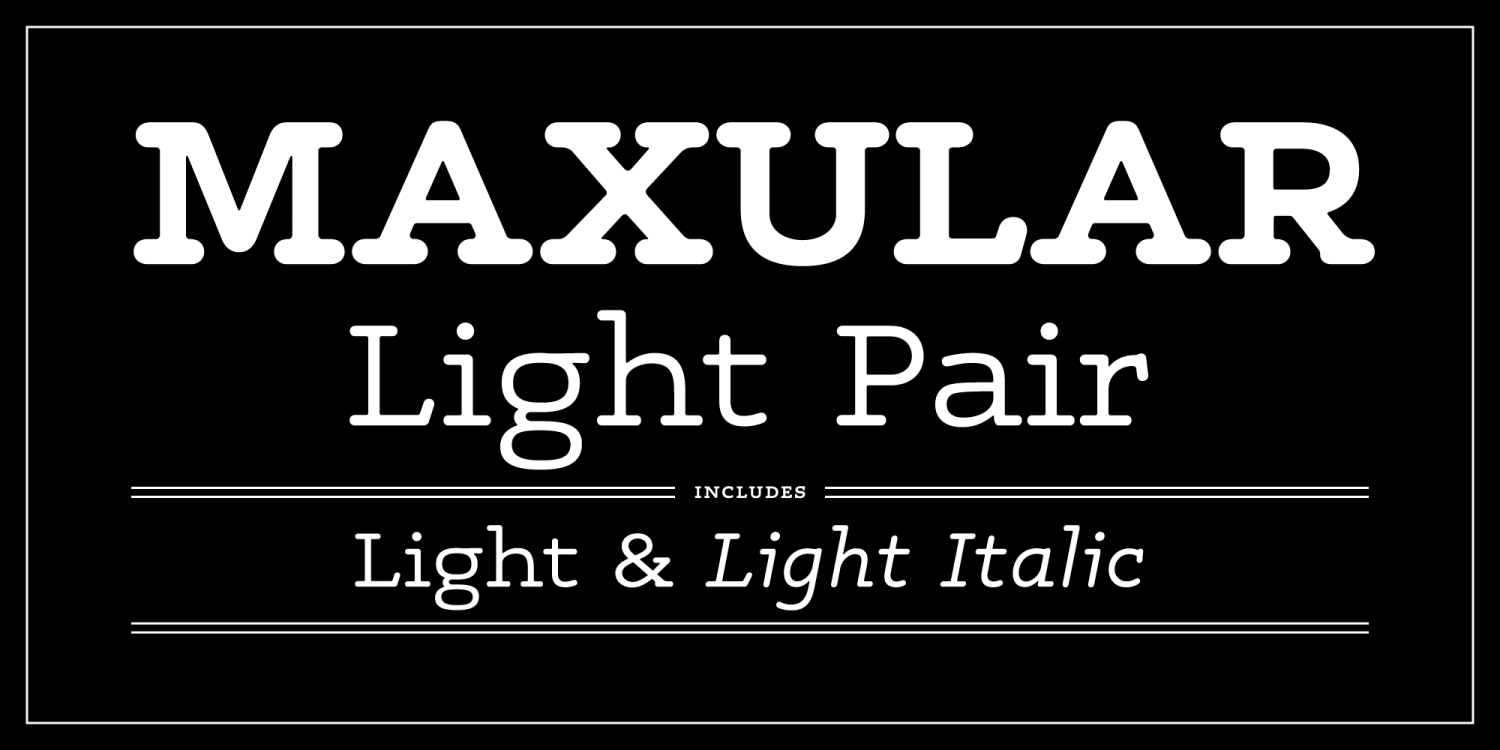
Maxular Light Pair
Six years in the making, Maxular is a rounded slab serif typeface by award-winning designer, author, and educator Steven Skaggs.
Maxular Rx is the first typeface expressly designed — and proven in scientific tests — to address the visual distortions caused by Macular Degeneration.
Every font in the Maxular family has a character set of over 700 glyphs, with support for 220 languages including Czech, Polish, Turkish, and Vietnamese.
The result: Maxular is a versatile, friendly and easy to read typeface. Use it as a fresh alternative in place of other typewriter style fonts for its proportional spacing, its high readability, and superior legibility for copy set in smaller sizes.
Maxular Light
Maxular Light Italic